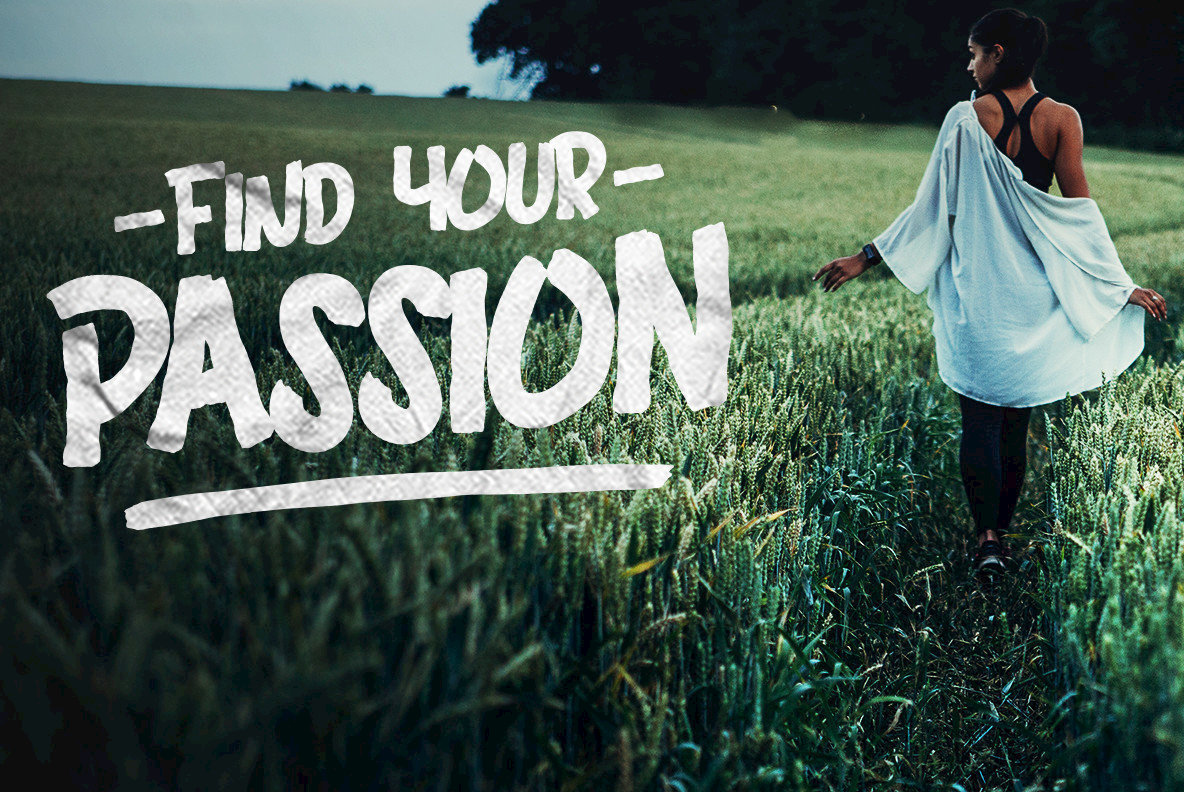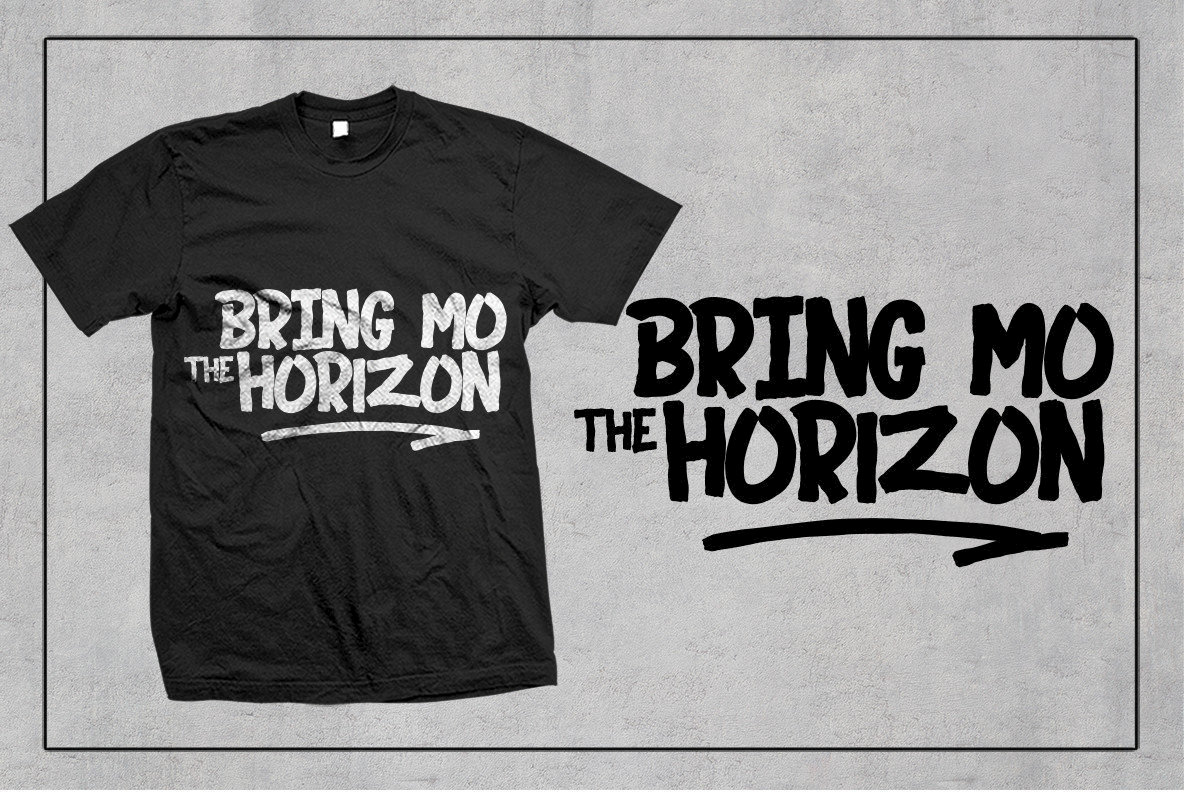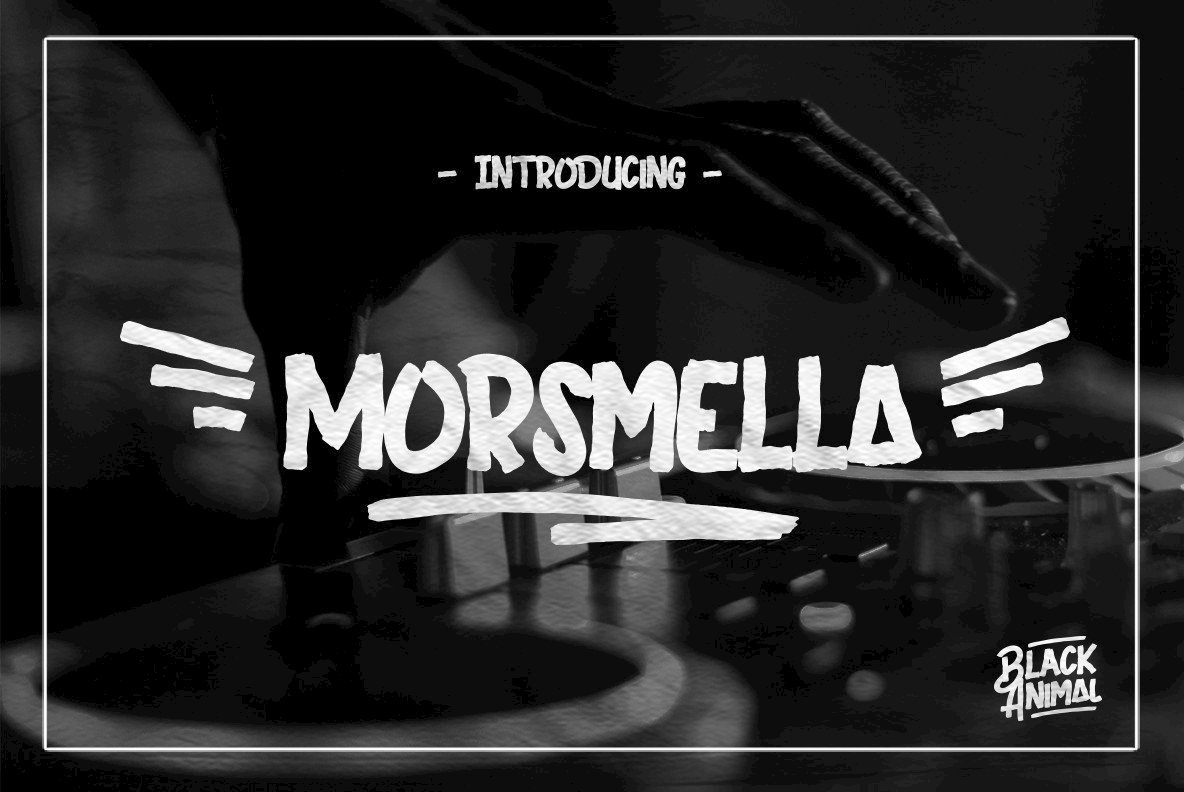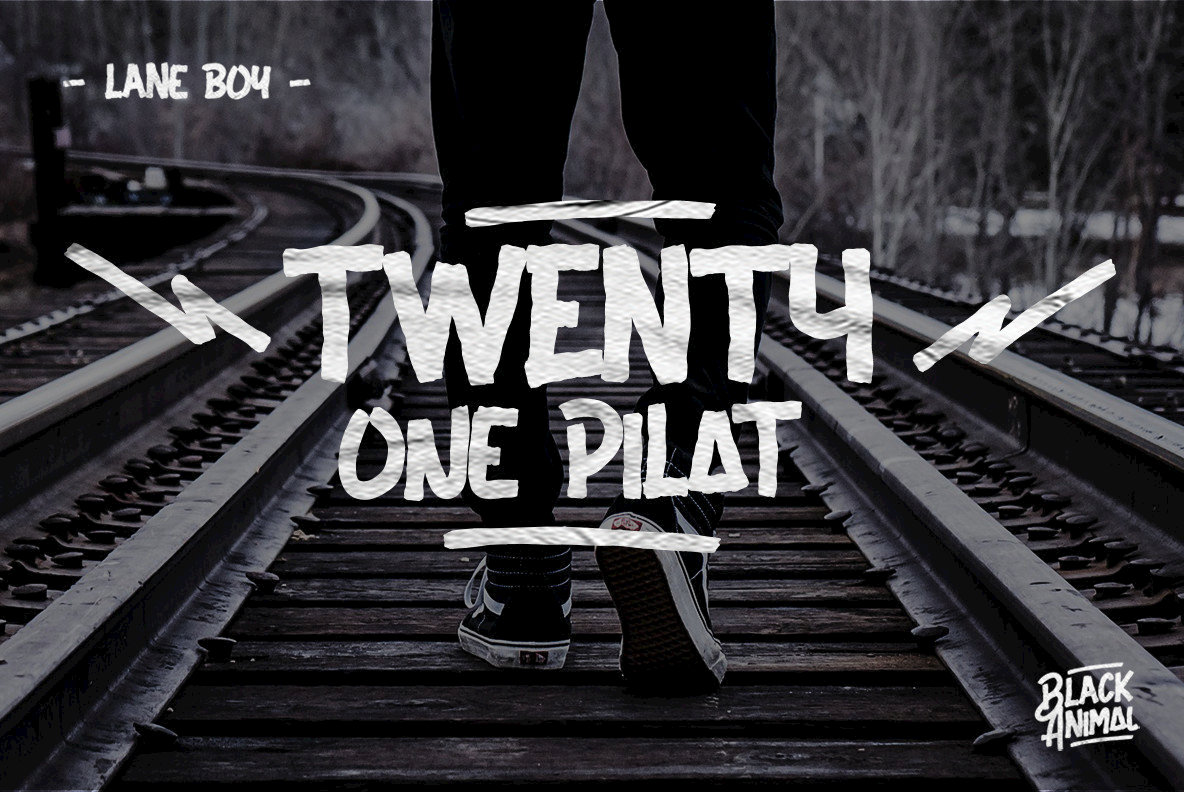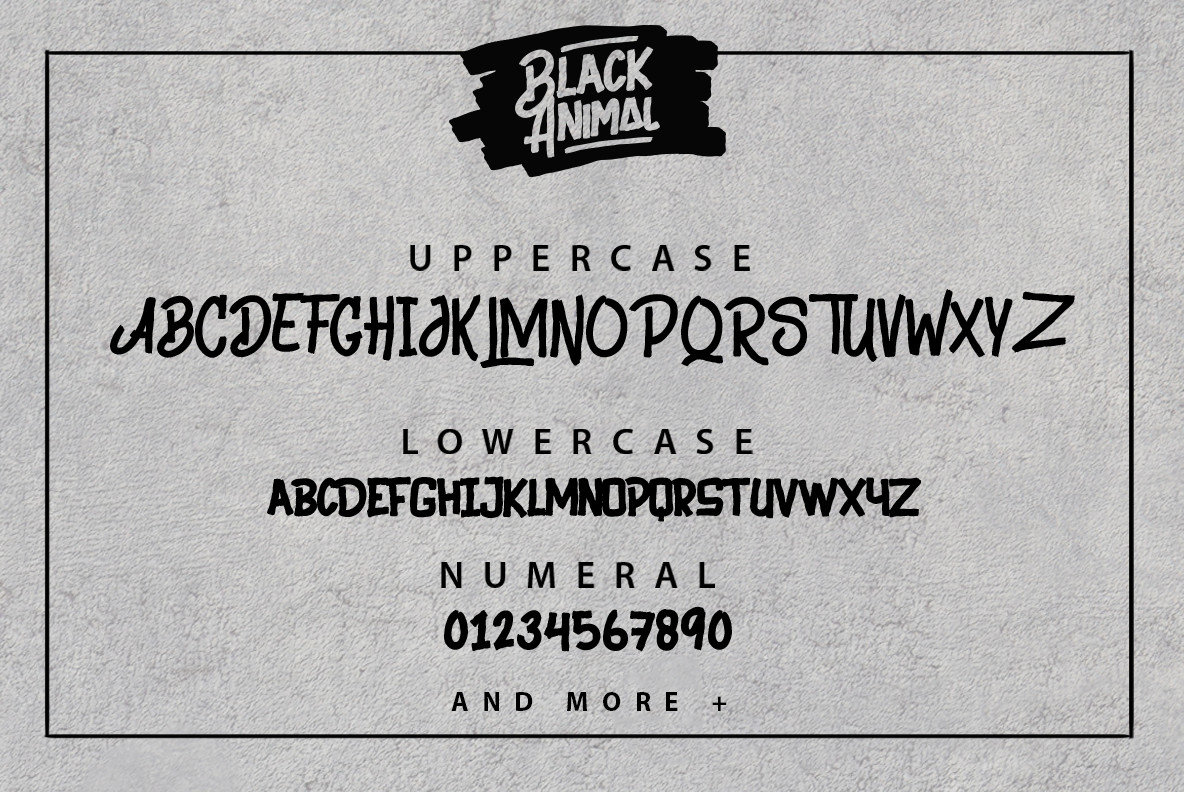
Black Animal Font
Black Animal
Black Animal is handmade, brush style font that works best for logos, product packaging, merchandise, social media & greeting cards.